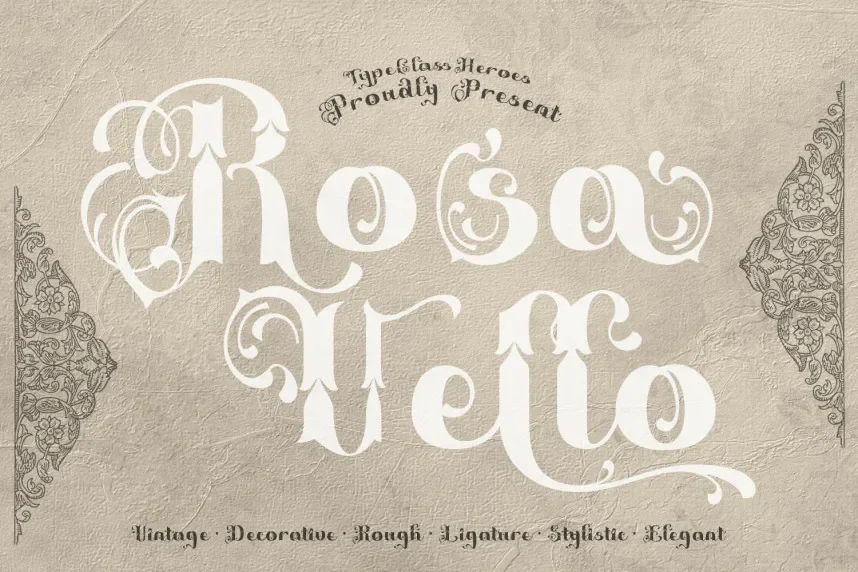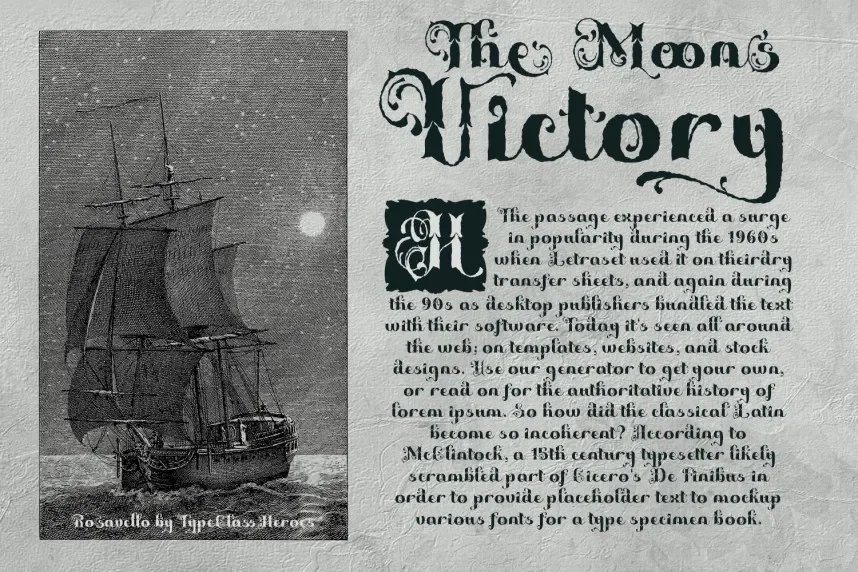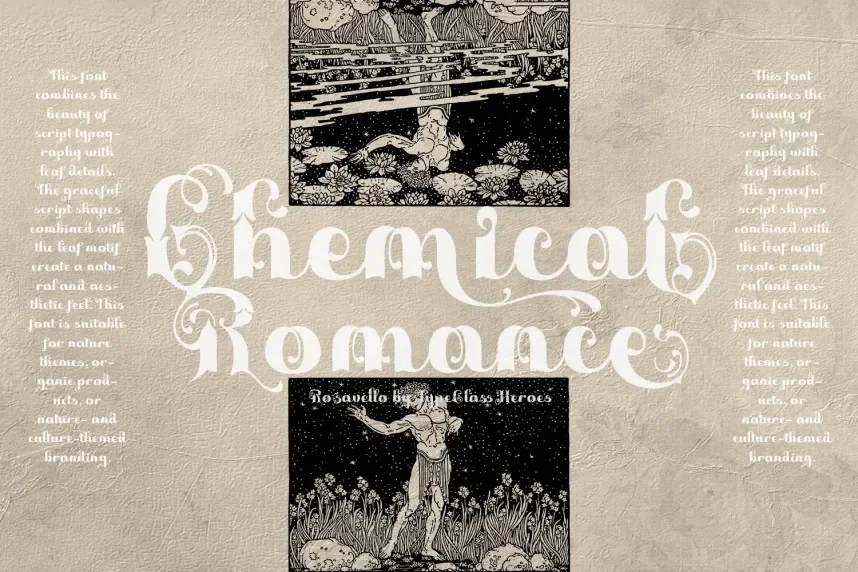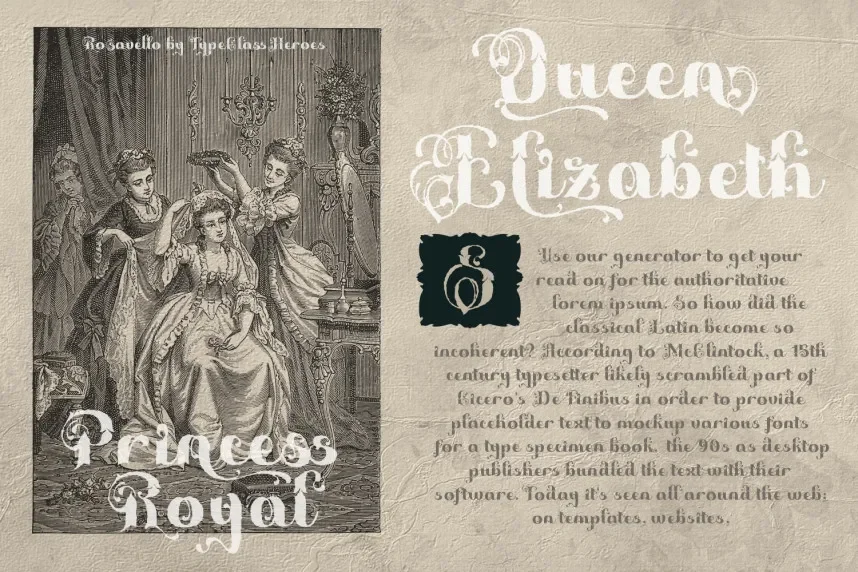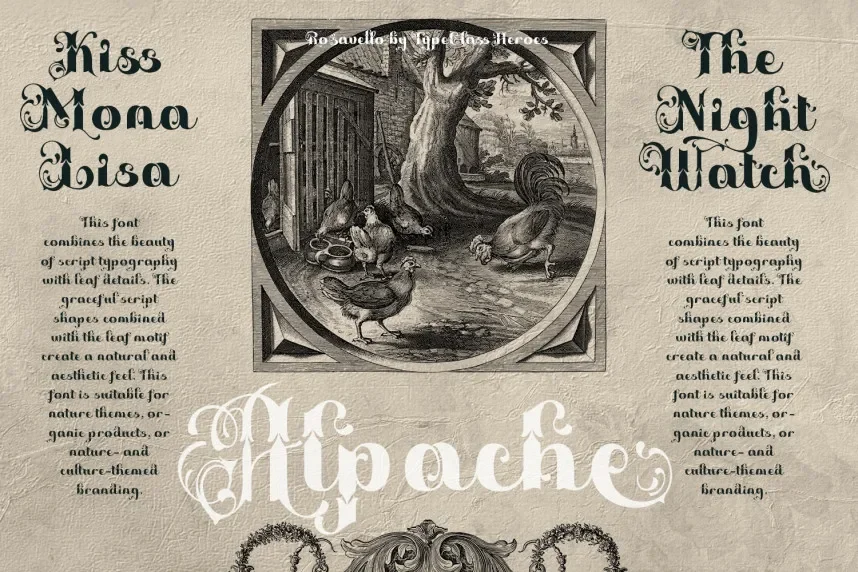
Rosavello Font is an elegant serif typeface with clean, modern lines and subtle curves. Its balanced proportions and refined design make it perfect for high-end branding, invitations, and editorial design projects that require a classic, yet contemporary feel.